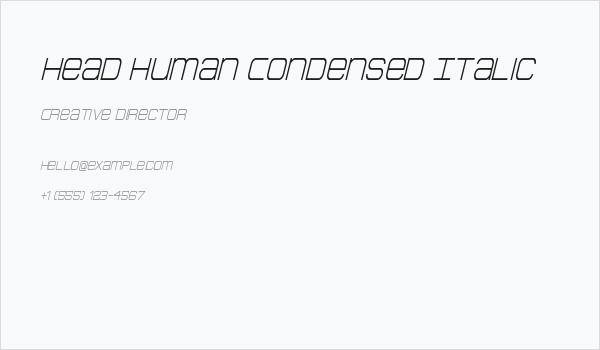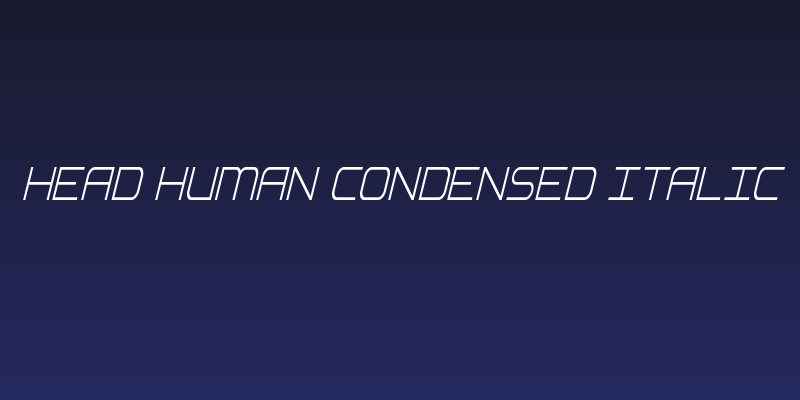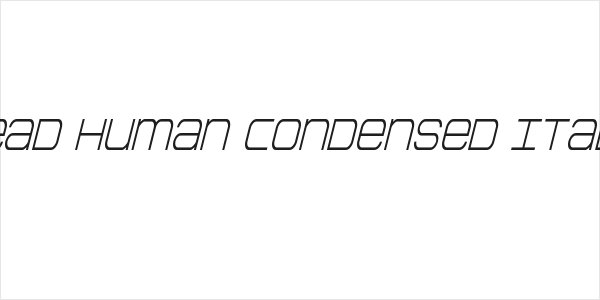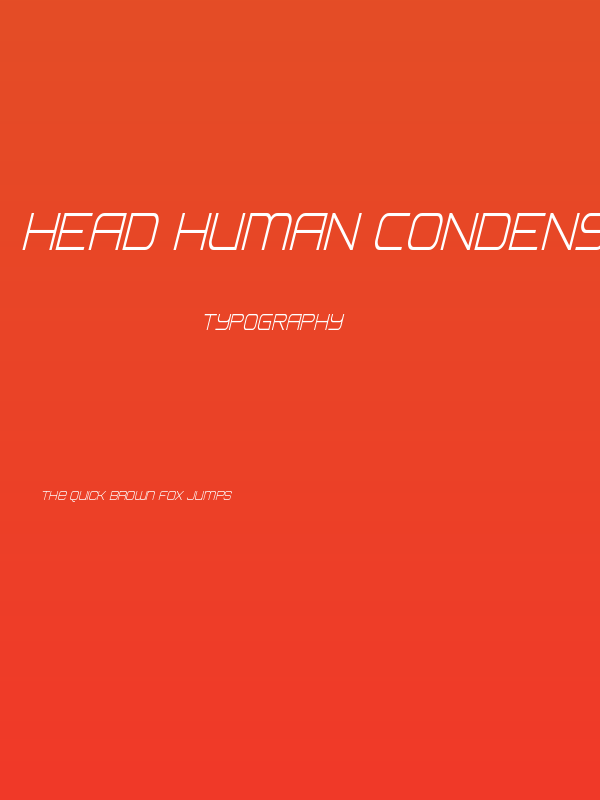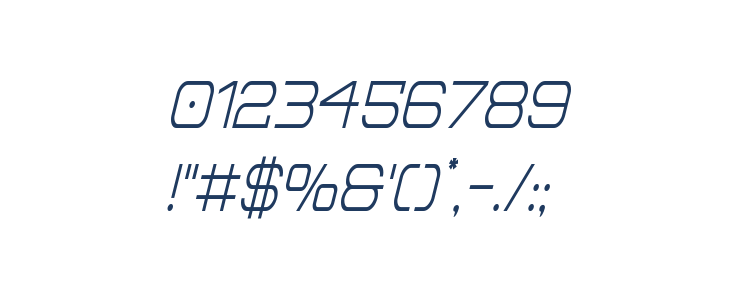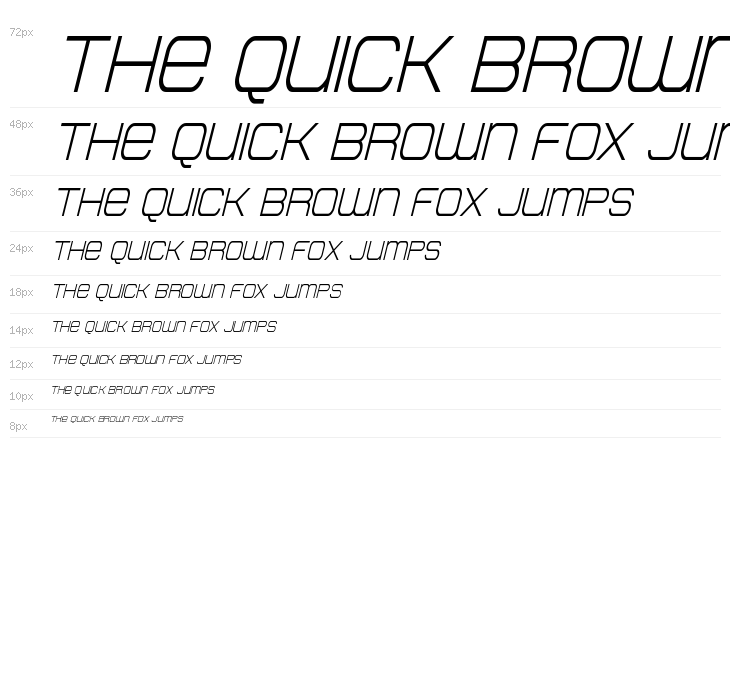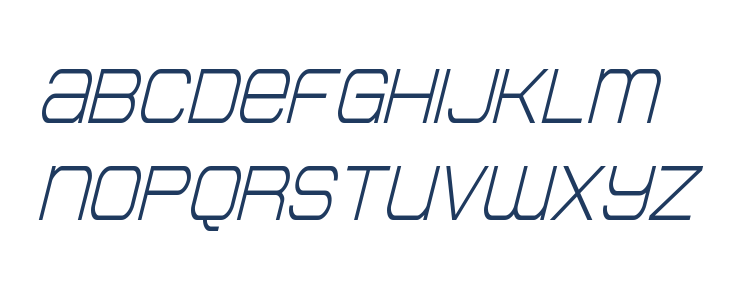
Head Human Condensed Italic Font
Head Human Condensed Italic Description
This font features a sleek, modern design with a condensed and italicized style. The characters are elongated and slightly slanted, giving a dynamic and forward-moving appearance. The strokes are uniform in thickness, contributing to a clean and streamlined look. The font maintains a consistent geometric structure, with rounded edges that soften the overall aesthetic. It is highly legible, making it suitable for various applications where clarity and style are essential. The numbers and special characters are designed to match the alphabet's modern and cohesive look, ensuring versatility across different uses.
| Use Case | Headlines, Logos, Advertising |
| Proposed Projects | Ideal for branding, advertising, and editorial design projects that require a modern and dynamic look. |